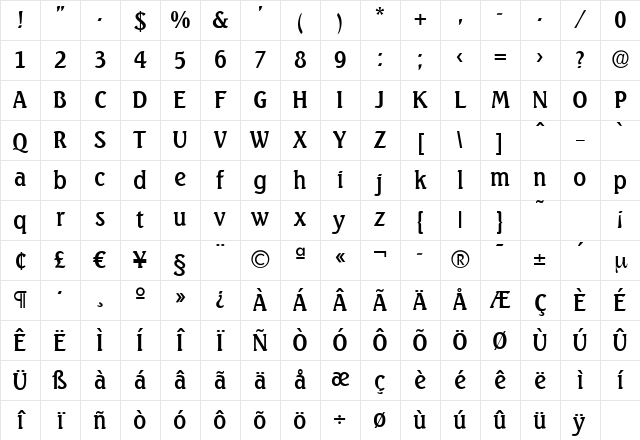
AbelBecker Regular
AbelBecker Family
Design Context for AbelBecker
AbelBecker is a composed and adaptable typeface that performs quietly and consistently across a wide range of design contexts.